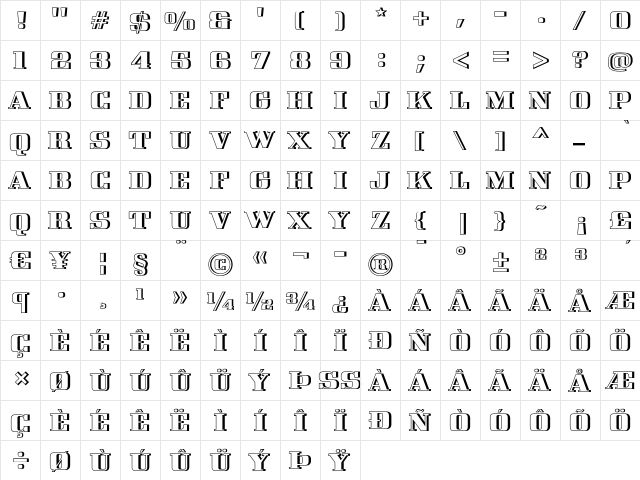
Ramona D Regular
Design Context for Ramona D Typeface
Ramona D is a composed and adaptable typeface that performs quietly and consistently across a wide range of design contexts.